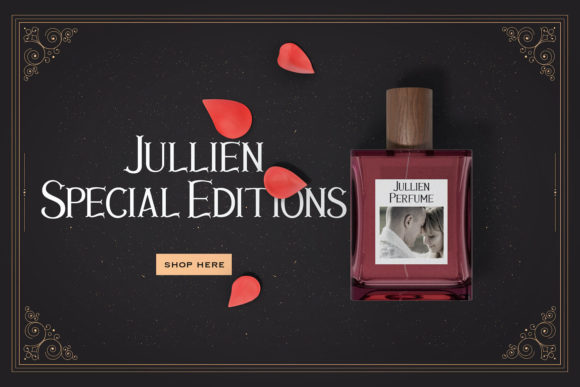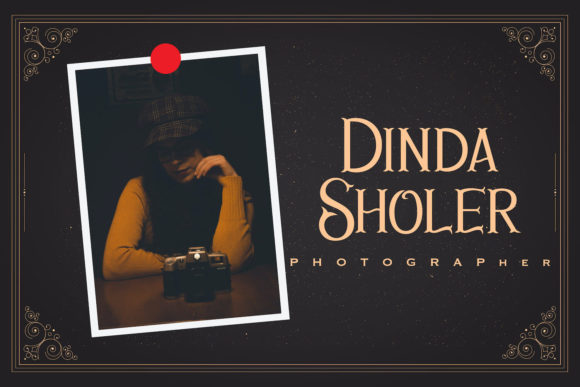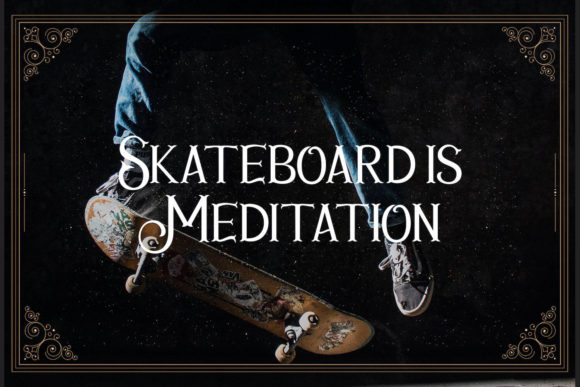
The Designer’s Delight: Avins Bake Font
I’ll never forget the struggle I faced while working on a project for a client who wanted a vintage bakery logo. I scoured the internet for the perfect font, but nothing seemed to fit the bill. That was until I stumbled upon Avins Bake, a beautiful and modern serif font that instantly captured my heart. In this article, I’ll share my love for Avins Bake, its features, and how to make the most of it in your designs.
Avins Bake: A Timeless Beauty
Avins Bake is a stunning serif font that exudes elegance and sophistication. Its incredibly distinct and timeless style makes it perfect for creating spectacular designs that stand out from the crowd. One of the best things about Avins Bake is its PUA encoding, which allows you to access all the glyphs and swashes with ease!
- ✨ Beautifully crafted serif font with a unique style
- ✅ Highly versatile and suitable for various design projects
- ✅ Easy to read and works well in large and small sizes
- ⚠️ Some users might find the font a bit too ornate for certain projects
- 🤔 Limited availability of language support (but great for English-based designs)
The Story Behind Avins Bake
Avins Bake was designed with the intention of creating a beautiful, elegant font that captures the essence of traditional bakeries. The designer aimed to create a font that would be both timeless and versatile, suitable for various design projects. Although the designer’s story is shrouded in mystery, one thing is clear: Avins Bake has become a beloved font among designers and crafters.
A: PUA (Private Use Area) encoding allows font users to access glyphs and swashes easily. This means you can use the font’s full range of features without having to rely on external tools or software.
Q: Is Avins Bake suitable for body text?
A: While Avins Bake is an elegant font, it’s best suited for headlines, titles, and short paragraphs. For longer body text, you might prefer a font with better readability.